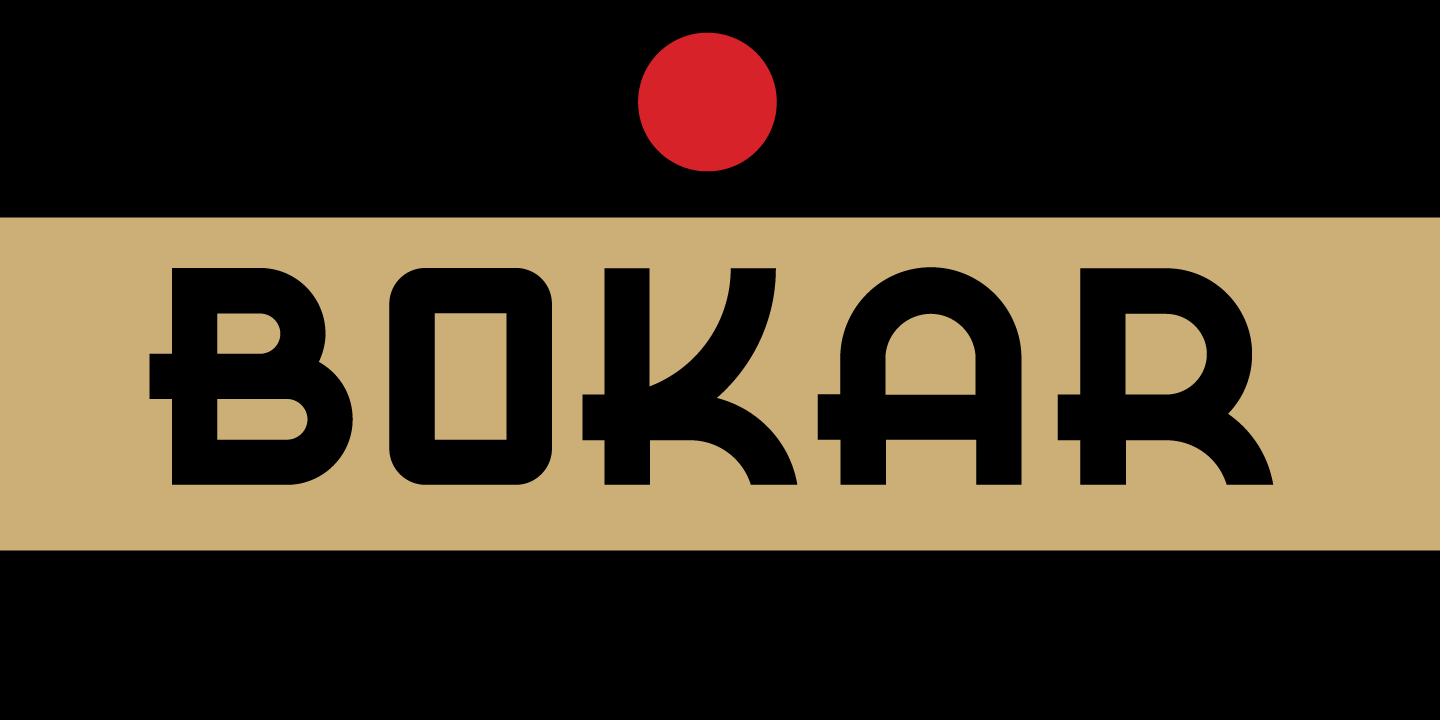
Bokar
Much of my inspiration comes from imagery and style that technology has rendered obsolete. I treasure anachronistic artifacts of packaging and design which have somehow evaded obliteration by focus groups, and manage to still be a part of our visual landscape.
I am particularly taken with the packaging for A&P coffee brands Eight O'Clock, Red Circle and Bokar whose eccentric yet elegant typography harkens back to an earlier, less complicated era. The font Bokar is my nod of appreciation to those robust and full-bodied blends spared from the bland, tasteless scourge of corporate branding.